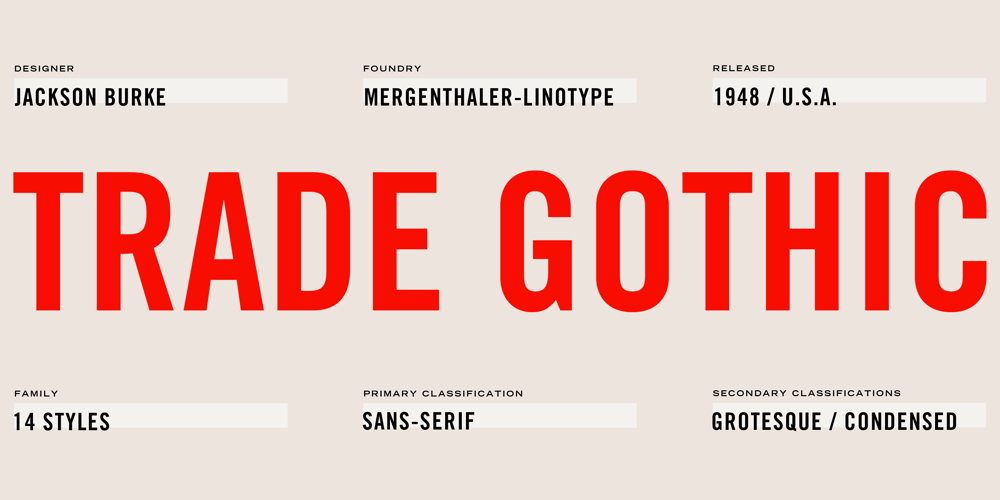
Trade Gothic Font Family was designed by Jackson Burke and published by Linotype. Trade Gothic contains 14 styles and family package options. The first cuts of Trade Gothic were designed by Jackson Burke in 1948. He continued to work on further weights and styles until 1960 while he was director of type development for Mergenthaler-Linotype in the USA. Trade Gothic does not display as much unifying family structure as other popular sans serif font families, but this dissonance adds a bit of earthy naturalism to its appeal. Trade Gothic is often seen in advertising and multimedia in combination with roman text fonts, and the condensed versions are popular in the newspaper industry for headlines.